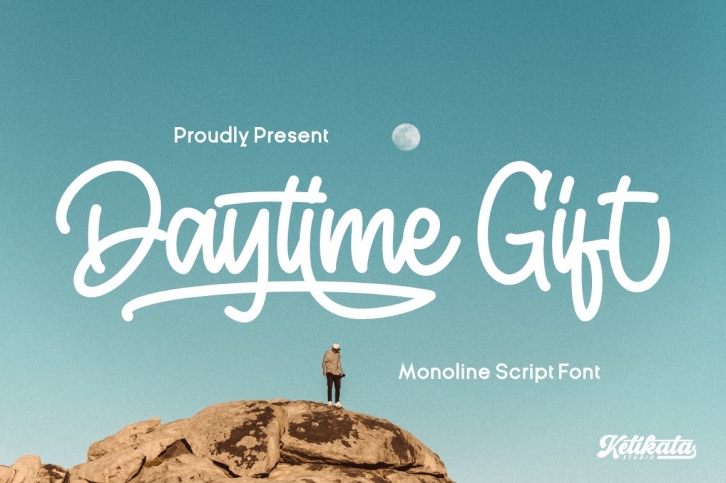
Daytime Gift Monoline Script is a trendy and unique font with an authentic style. It was designed by Ketikata Studio and it's a great choice for creative people who need such a font. It was released on January 8, 2021 and the file size is 16.76 MB. Daytime Gift Monoline Script will add an organic vibe to any design idea!